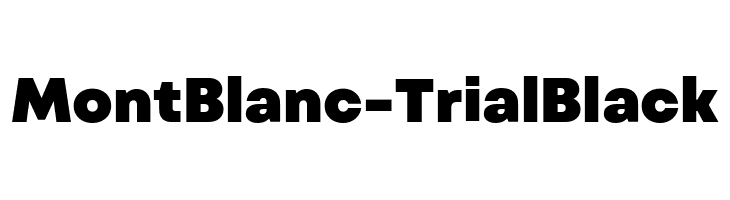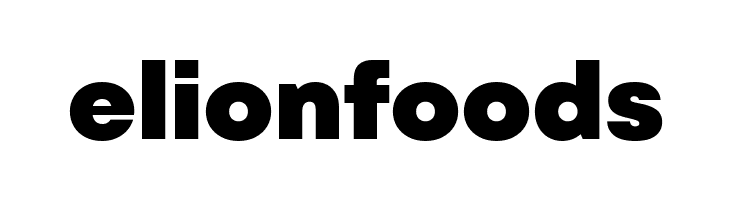
A bold, geometric font with strong, angular lines and a blocky appearance.
A bold, modern sans-serif font with clean lines and rounded edges.
A bold, modern sans-serif font with a clean and impactful style.
A bold, modern font with strong geometric shapes and consistent stroke widths.